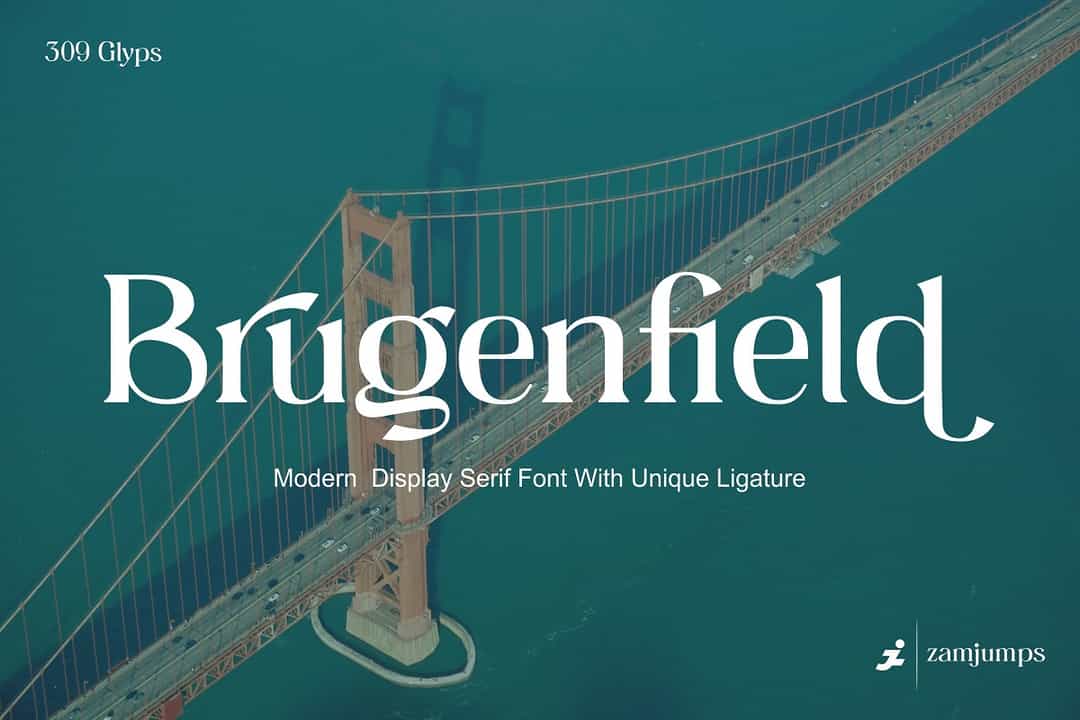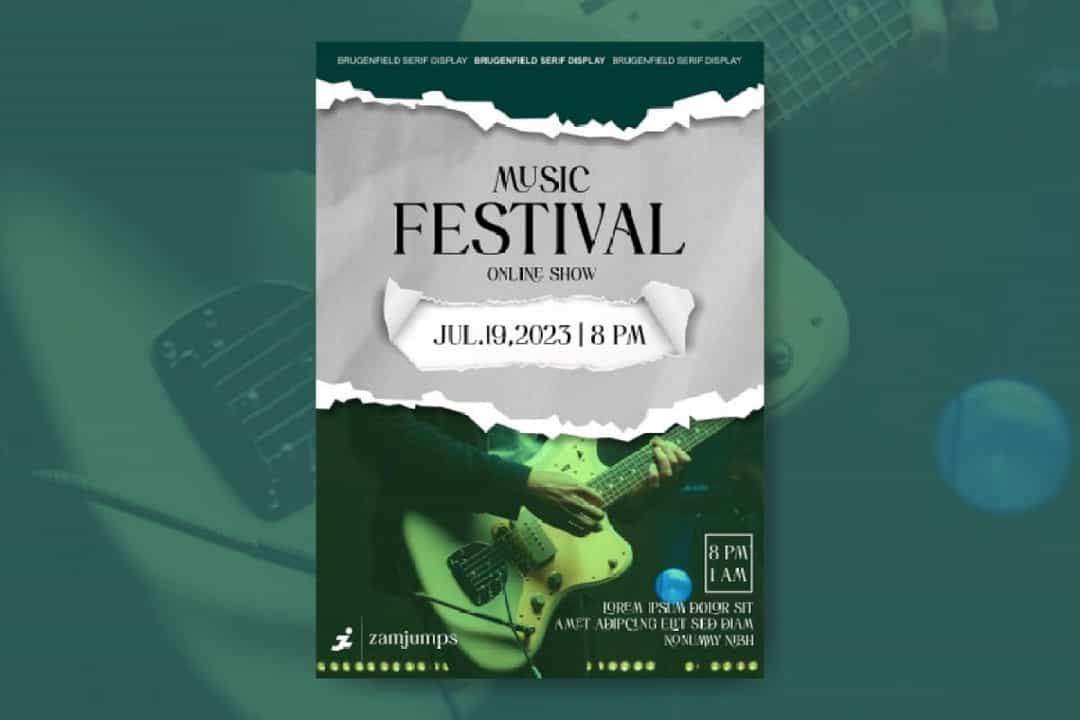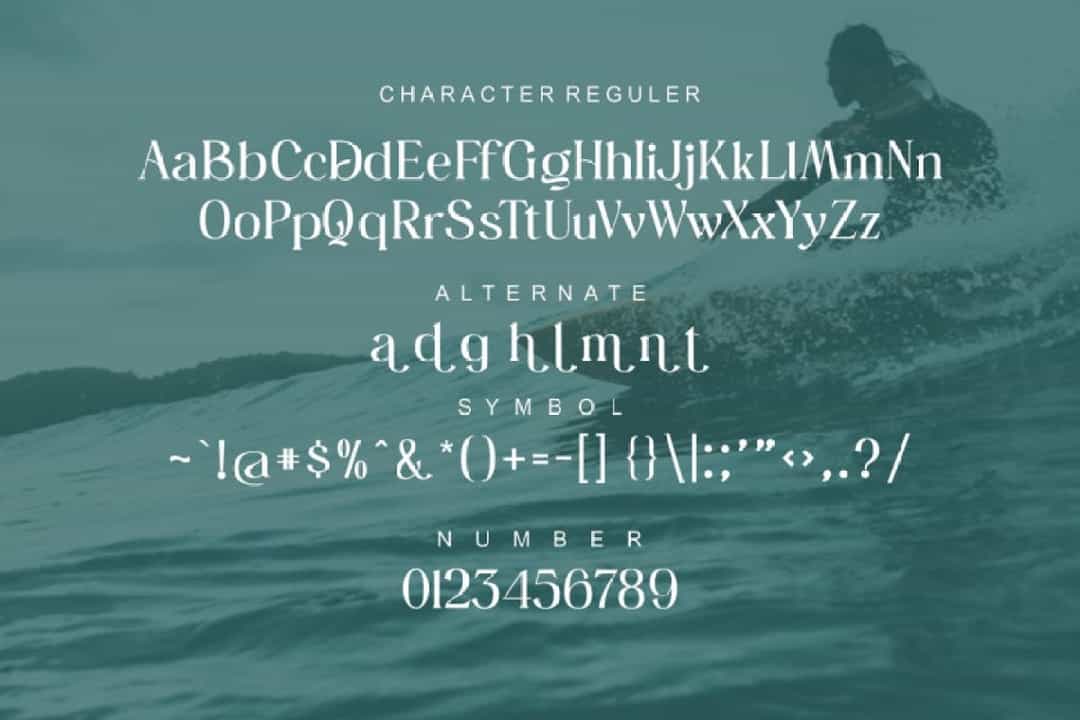
Brugenfield Font
Brugenfield is a contemporary display serif font with a distinctive ligature. Care was taken when designing this typeface to ensure premium feel and luxurious appearance; additionally, its bindings make this font truly distinct among other serif fonts.